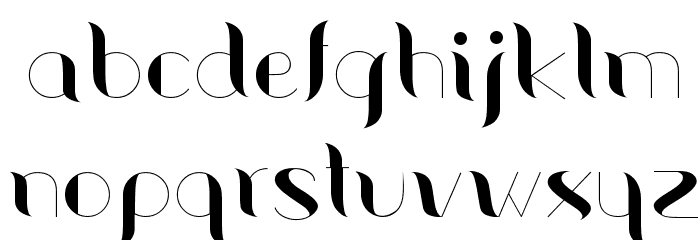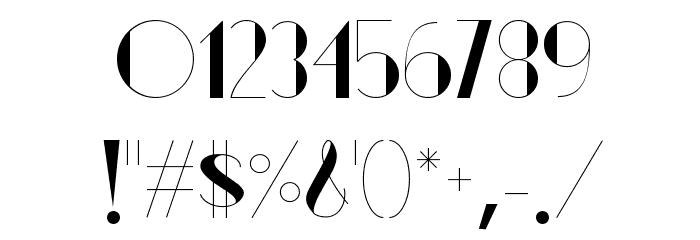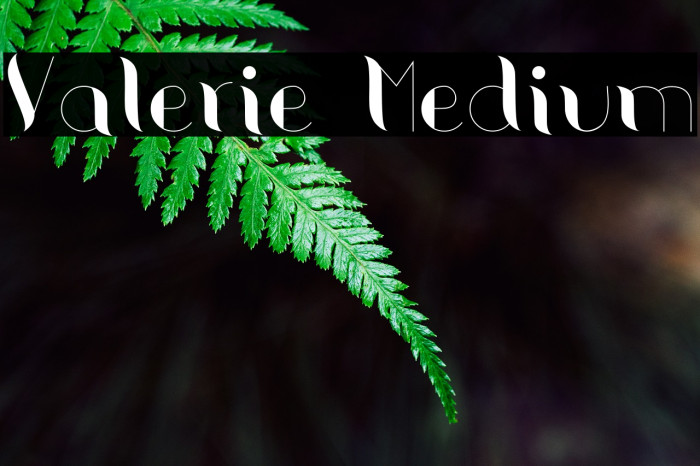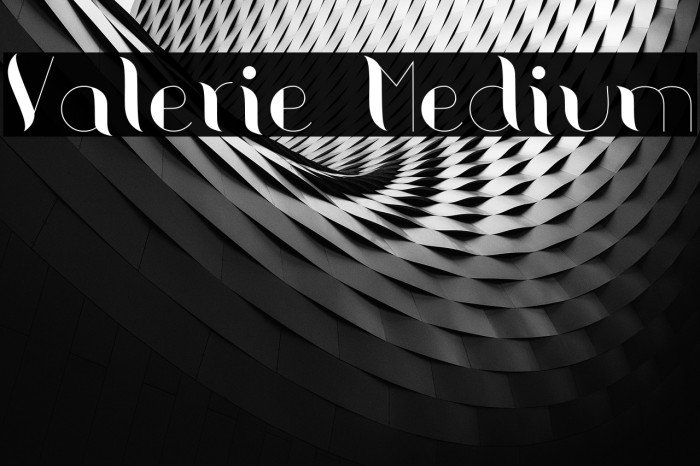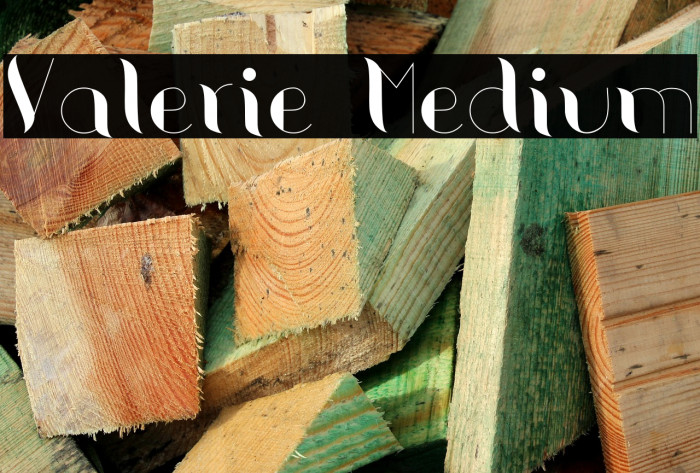
Valerie Medium Font
This font exhibits a modern and stylish design with a unique blend of thick and thin strokes, creating a high contrast that draws attention. The uppercase letters have a distinct, elegant flair with sharp angles and smooth curves, giving them a sophisticated appearance. The lowercase letters maintain a sleek and contemporary look, with a more subtle contrast in stroke thickness. Numbers and special characters follow the same design principles, ensuring consistency throughout. The overall aesthetic is both artistic and functional, making it suitable for a variety of creative applications.
A modern, high-contrast font with elegant curves and sharp angles.
- Proposed Projects: Ideal for branding, fashion magazines, luxury product packaging, and artistic posters.
- Use Case: Logos, Headlines, Artistic projects